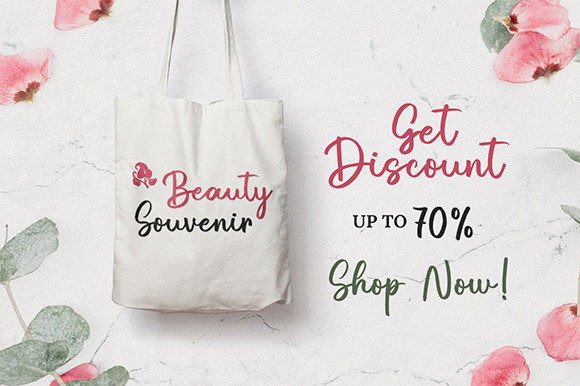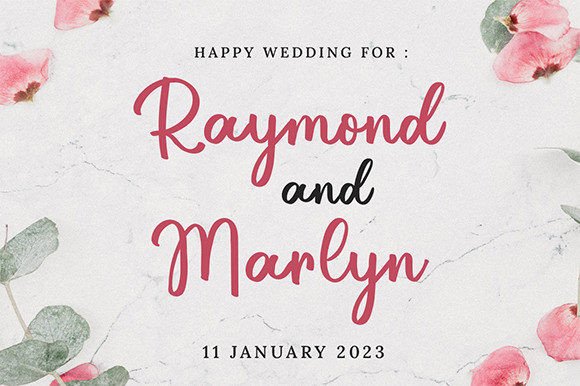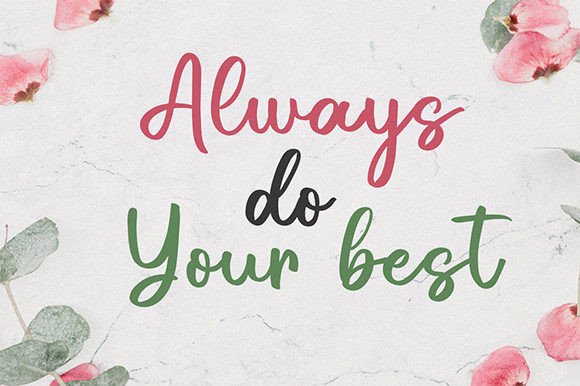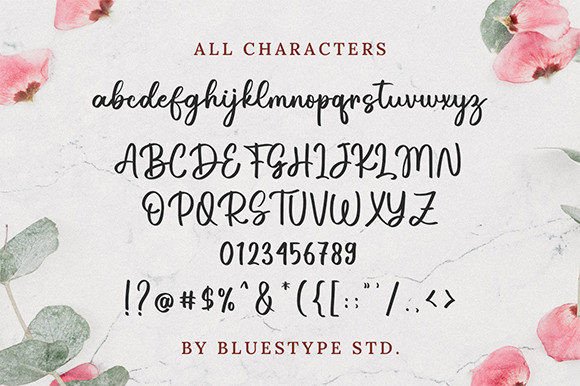
Hay Darling Font: The Perfect Choice for Your Creative Projects
Are you looking for a font that combines legibility and authenticity? Look no further than Hay Darling Font! This sweet and beautiful font is perfect for a variety of creative projects, from wedding invitations to social media posts, logos, magazines, quotes, fashion, watermarks, and branding.
What Makes Hay Darling Font So Special?
Hay Darling Font is a unique and elegant font that is designed to make your text stand out. Its classic and timeless design makes it perfect for projects that require a touch of sophistication and elegance. The font is highly legible, making it easy to read and understand, even at small sizes.
Key Features of Hay Darling Font
- Legibility: Hay Darling Font is designed to be highly legible, making it perfect for body text, headings, and titles.
- Authenticity: The font has a unique and authentic design that sets it apart from other fonts.
- Versatility: Hay Darling Font is suitable for a wide range of creative projects, from wedding invitations to social media posts.
- Elegance: The font has a classic and timeless design that adds a touch of sophistication and elegance to any project.
Uses of Hay Darling Font
Hay Darling Font is a versatile font that can be used for a variety of creative projects, including:
- Wedding Invitations: The font’s elegant design makes it perfect for wedding invitations, save-the-date cards, and other wedding-related materials.
- Social Media Posts: Hay Darling Font is great for social media posts, including Instagram captions, Facebook posts, and Twitter updates.
- Logos: The font’s unique design makes it perfect for logos, branding, and identity design.
- Magazines: Hay Darling Font is suitable for magazine headings, titles, and body text.
- Quotes: The font’s elegant design makes it perfect for quotes, sayings, and inspirational messages.
- Fashion: Hay Darling Font is great for fashion-related projects, including clothing labels, fashion blogs, and magazine articles.
- Watermarks: The font’s subtle design makes it perfect for watermarks, signatures, and other subtle design elements.
- Branding: Hay Darling Font is suitable for branding, packaging, and product design.
Why Designers and Crafters Love Hay Darling Font
Designers and crafters love Hay Darling Font for its unique and elegant design. The font is easy to use and highly versatile, making it perfect for a wide range of creative projects. Here are some reasons why designers and crafters love Hay Darling Font:
- Highly Versatile: The font is suitable for a wide range of creative projects, from wedding invitations to social media posts.
- Unique Design: Hay Darling Font has a unique and authentic design that sets it apart from other fonts.
- Legible: The font is highly legible, making it perfect for body text, headings, and titles.
Hay Darling Font is a sweet and beautiful font that easily combines legibility and authenticity. Its classic and timeless design makes it perfect for a wide range of creative projects, from wedding invitations to social media posts, logos, magazines, quotes, fashion, watermarks, and branding. With its ease of use, versatility, and unique design, Hay Darling Font is a must-have for designers and crafters.